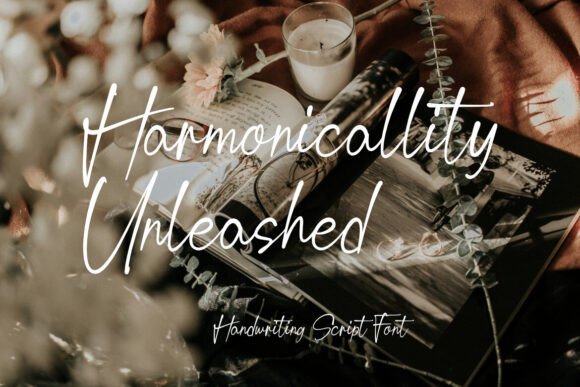
The Perfect Font for Your Next Masterpiece
Remember that moment when a single design element clicked into place, and your entire project took off? It’s a rush like no other, and it’s what drives us as creatives to push boundaries and strive for perfection. For many of us, the right font can be the key to unlocking that magic. That’s why we’re excited to introduce the Harmonicallity Unleashed Font, a stunning handwritten font that’s sure to become your new go-to.
This exquisite font masterfully blends classic calligraphic influences with a fresh, contemporary feel, making it the perfect choice for designers looking to add a touch of sophistication to their projects. With its elegant curves and unique character, the Harmonicallity Unleashed Font is sure to elevate your designs to new heights and leave a lasting impression on your audience.
Key Features of Harmonicallity Unleashed Font
- Unique Harmonicallity: Features a distinctive, hand-crafted design that blends elements of elegance and playfulness, making it perfect for creative and artistic projects.
- Extensive Character Set: Includes a wide range of characters, including Latin, Greek, and Cyrillic scripts, as well as a variety of punctuation marks and symbols.
Review of Harmonicallity Unleashed Font
Overall, I’m quite impressed with the Harmonicallity Unleashed Font. Here are a few things that really stand out to me: ✨
- The font has a beautiful, elegant feel to it. It’s perfect for use in high-end branding or luxury advertising.
- The font’s varied x-heights and letterforms give it a unique, hand-drawn feel that’s both charming and sophisticated.
- The font includes a wide range of languages and glyphs, making it a great choice for international projects.
Of course, no font is perfect, and there are a few limitations to be aware of: ⚠️
- The font may be a bit too ornate for some projects, particularly those that require a more minimalist or modern aesthetic.
- The font’s weight system can be a bit inconsistent, with some weights feeling more like variations of other weights than distinct styles.
Overall, I think the Harmonicallity Unleashed Font is a great choice for designers looking to add some elegance and sophistication to their projects. While it may not be the perfect fit for every project, it’s definitely worth considering for high-end or luxury branding work.
Harmonicallity Unleashed Font is perfect for:
- Creative headings and titles
- Typography and design elements
- Presentations and